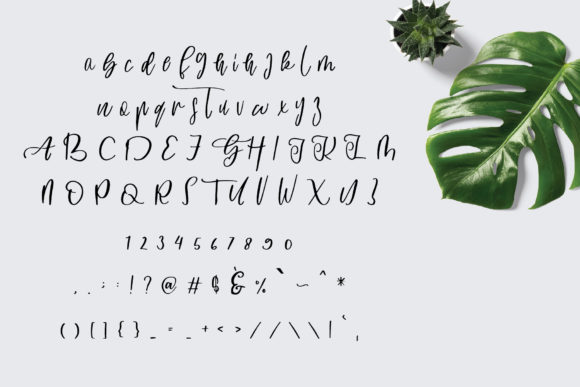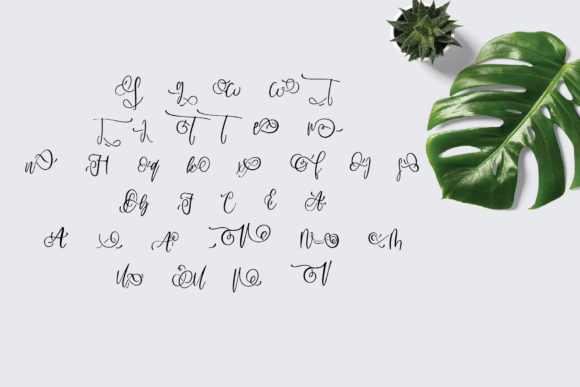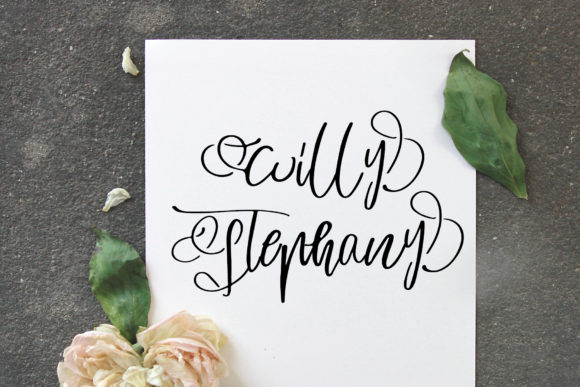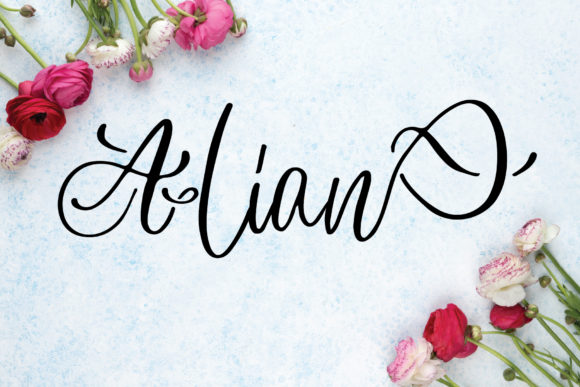
HomeScript FontsJuliant Font Script Fonts Juliant Font FacebookXPinterestWhatsApp Juliant Font Poster 2 Juliant Font Poster 3 Juliant Font Poster 4 Juliant Font Poster 5 About Juliant Font Juliant is a fancy script font with a unique style. Fall in love with its charming appearance! DOWNLOAD ON CREATIVE FABRICAThis font is sold and delivered by Creative Fabrica. Font Canyon may earn a commission if you buy through this link. People also explored Mont Ambassador Duo Font Petite Buds Monogram Font Almondita Font Carte Blanche Queena Font Rosallinda Font Shanta Font Bartteyla Font Romelia Font 286 0 TagsJuliant Font Previous articleCattily FontNext articleKaliarta Font LEAVE A REPLY Cancel reply Comment: Please enter your comment! Name:* Please enter your name here Email:* You have entered an incorrect email address! Please enter your email address here Website: Save my name, email, and website in this browser for the next time I comment. Personal Use Free Indonesia Dermawan Personal Use Free Read more about this font The Fourth Avenue Personal Use Free Read more about this font Scoothlane Personal Use Free Read more about this font Victorian Ornaments Personal Use Free Read more about this font BLOG The 10 Best Handwriting Fonts to Add Personality to Your Designs 10 of the Best Handwriting Fonts for Adding Personality to Your Designs There will undoubtedly be no other better choice than handwriting fonts to give... Modern Sans-Serif Fonts That Brands Love in 2025 To increase your work productivity, choose the most readable fonts. Free Fonts Risk: Why Free Fonts Can Be Dangerous for Designers